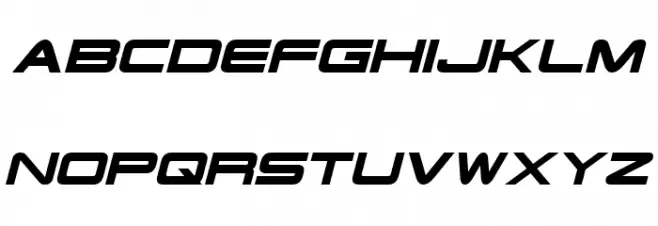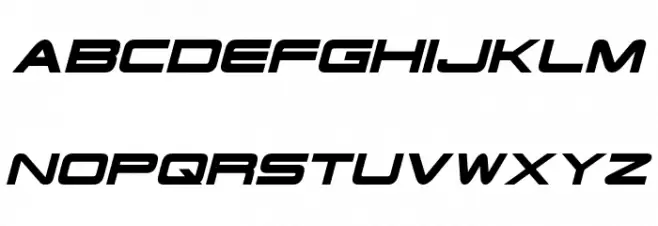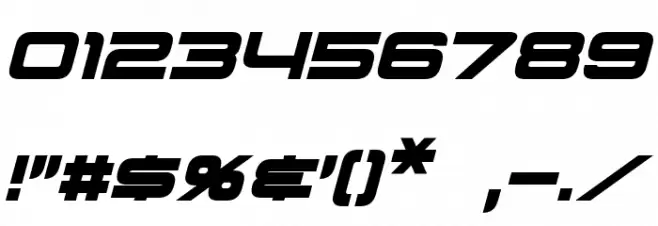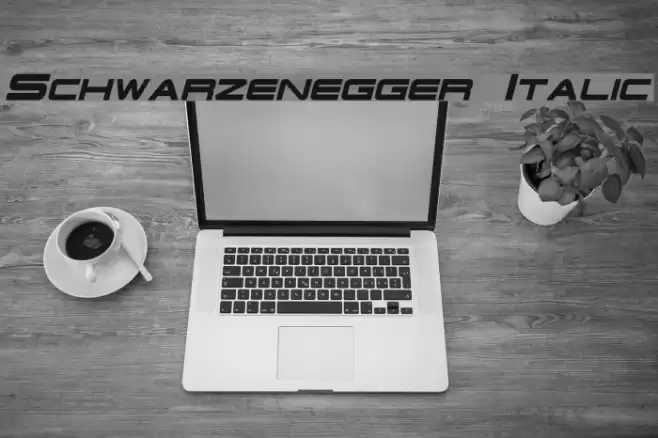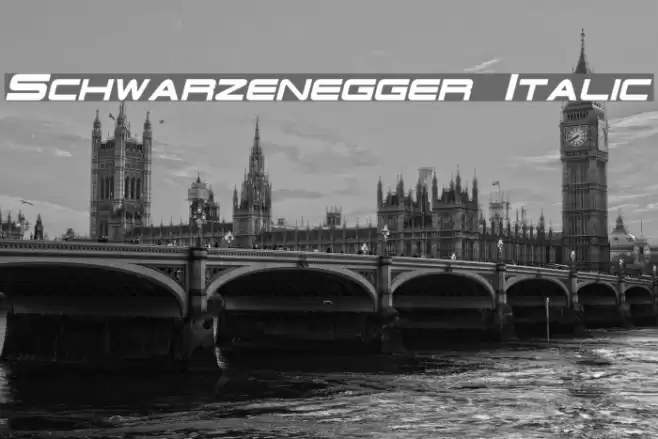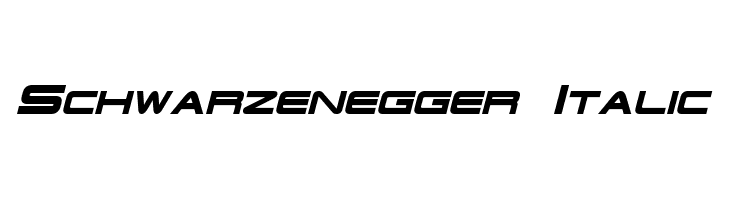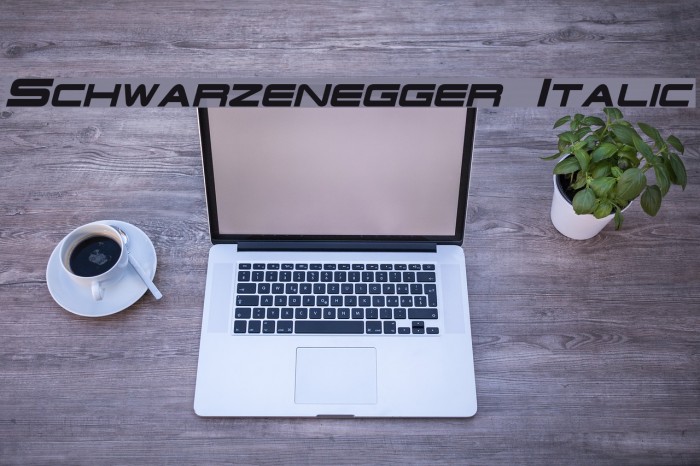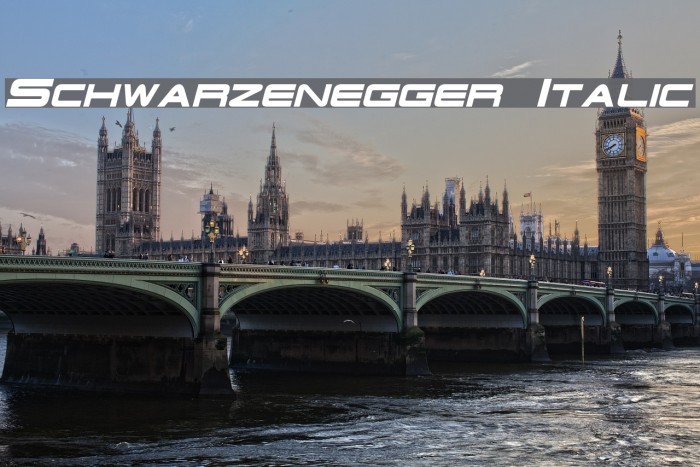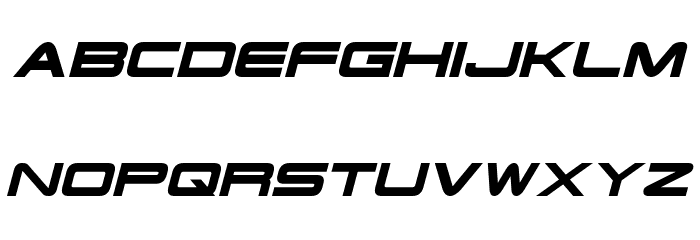
Schwarzenegger Italic
This font features a sleek, italicized design with a modern and futuristic appeal. The characters are slightly slanted, giving a sense of motion and dynamism. The strokes are consistent in thickness, providing a uniform appearance across all letters and numbers. The design is clean and minimalistic, with a focus on readability and style. The special characters maintain the same slanted and bold characteristics, ensuring a cohesive look throughout. This font is ideal for projects that require a contemporary and energetic feel.
A sleek, italicized font with a modern and dynamic style.
- Proposed Projects: Ideal for branding, sports team logos, technology-related designs, and modern advertising campaigns.
- Use Case: Logos, Headlines, Branding